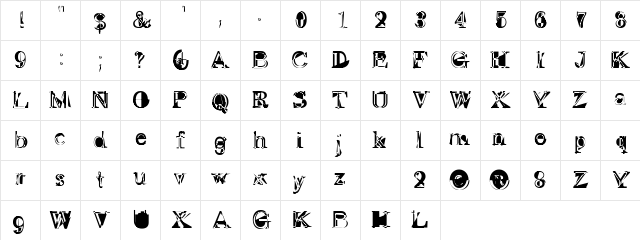
NeoDeko Medium Free Font
NeoDeko Medium
Design Context for NeoDeko
NeoDeko is a composed and adaptable typeface that performs quietly and consistently across a wide range of design contexts.